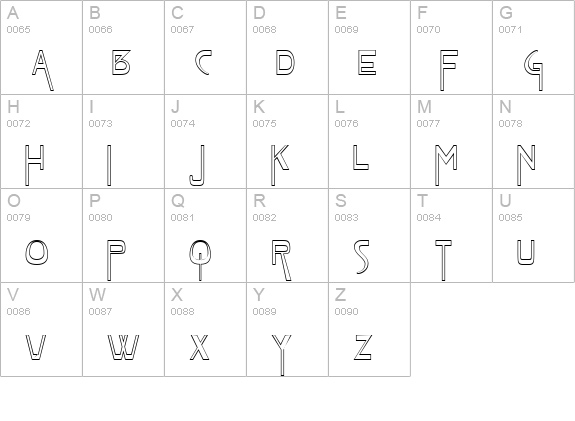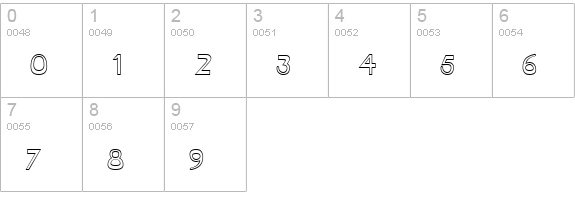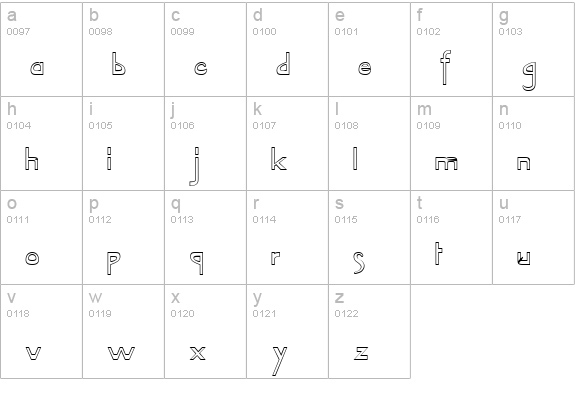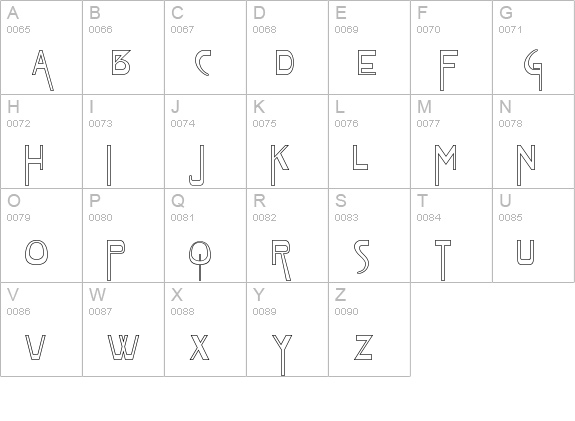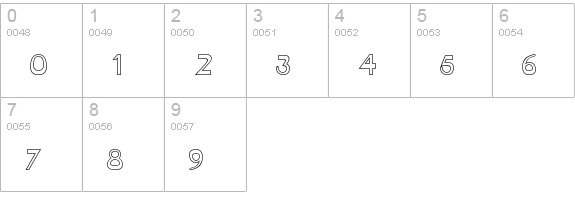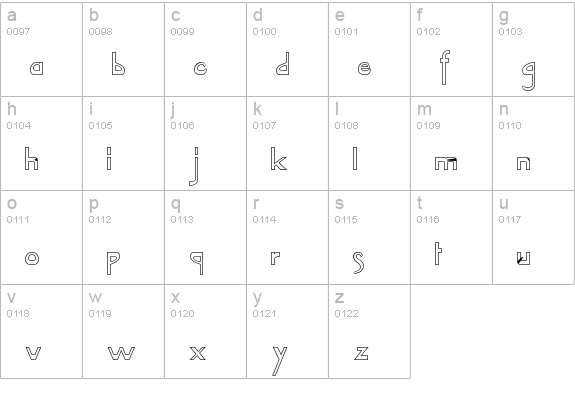
TabletHollow Normal Font Details
TabletHollow Normal is the standard, neutral variant in the TabletHollow typeface family \xE2\x80\x94 well suited to general body text, paragraphs, and standard typographic work.
TabletHollow Normal font is a modern and stylish typeface that will add a touch of sophistication to your designs. Its clean and sleek lines make it perfect for a wide range of projects, from logos and branding to website headers and social media graphics. This versatile font features a unique blend of straight and curved lines, creating a harmonious balance that is visually pleasing to the eye. Its slightly rounded corners add a subtle softness, making it approachable and friendly. One of the best things about TabletHollow Normal font is that it is available for free download at FontsMarket.com. This means you can easily access this amazing font without any cost, making it an excellent choice for budget-conscious designers and creatives. With its legible and well-defined characters, TabletHollow Normal font ensures that your message will be clear and easy to read, even at small sizes. Its consistent stroke widths and precise letterforms contribute to its overall readability, making it suitable for both print and digital applications. Whether you're working on a professional project or simply looking to add some flair to your personal designs, TabletHollow Normal font is a fantastic choice. Its combination of elegance and simplicity makes it a versatile option that can be used in a variety of contexts. So why wait? Download TabletHollow Normal font for free at FontsMarket.com and start adding a touch of sophistication to your designs today!